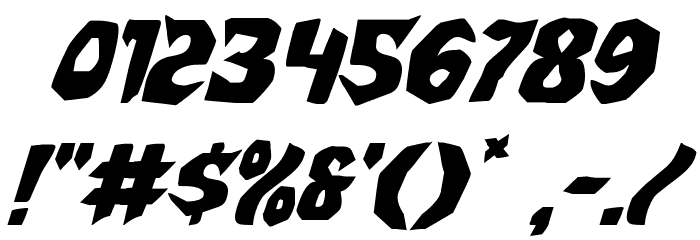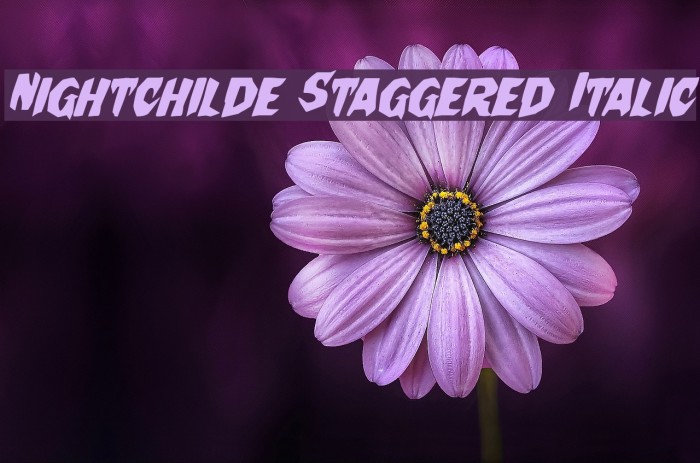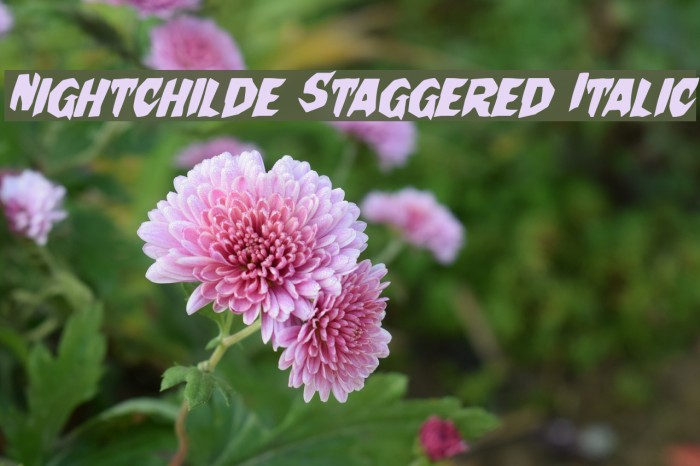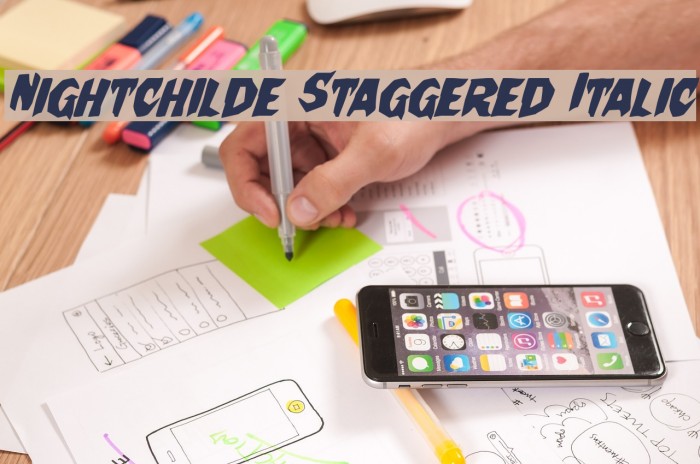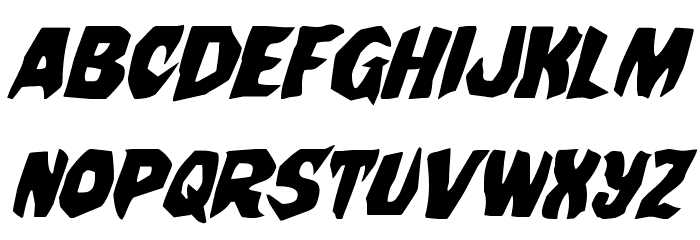
Nightchilde Staggered Italic Font
Nightchilde Staggered Italic Description
This font features a bold and dynamic style with a staggered, italicized appearance. The characters are sharply angled, giving them a sense of movement and energy. The uppercase and lowercase letters share a consistent design, with exaggerated serifs and a slightly distorted form that adds to the font's unique character. The numbers and special characters maintain the same bold and angular aesthetic, ensuring a cohesive look across all glyphs. This font's striking appearance makes it ideal for projects that require a strong visual impact.
A bold, staggered italic font with dynamic, angular characters from Uncategorized fonts.
- Proposed Projects: Ideal for posters, album covers, video game titles, and any project needing a bold, energetic typeface.